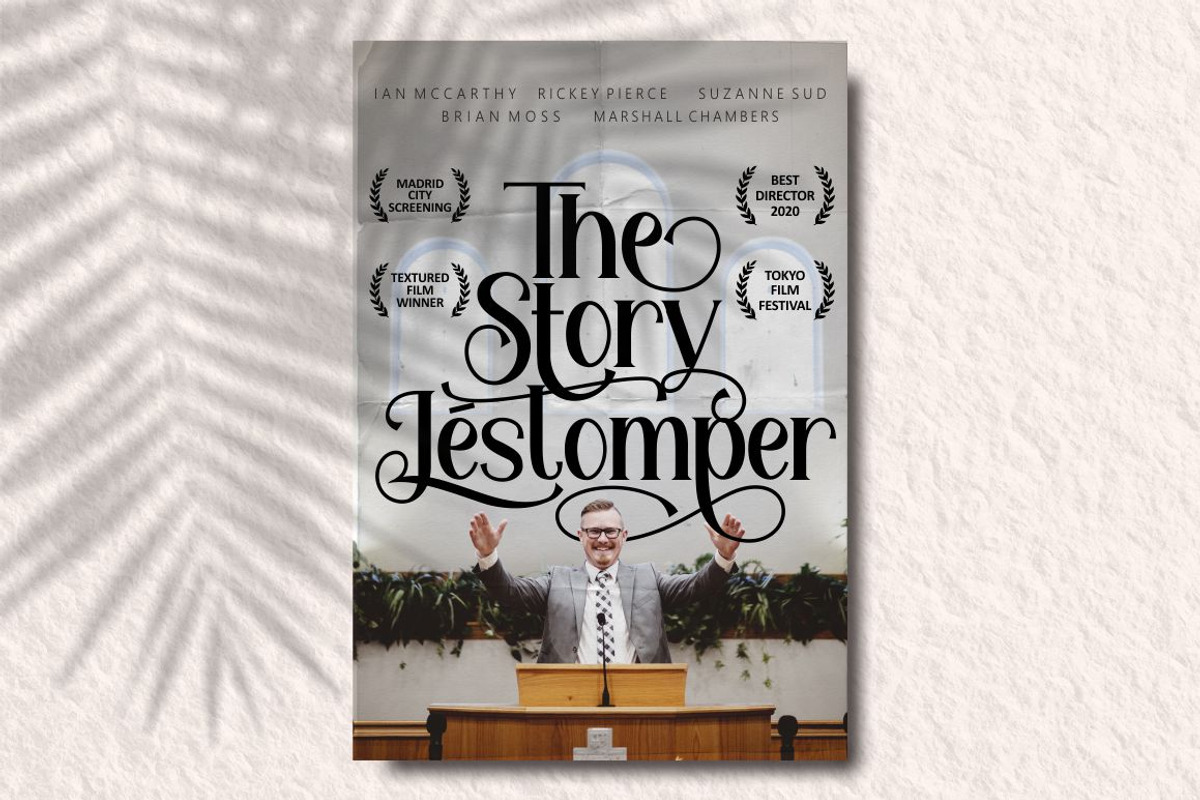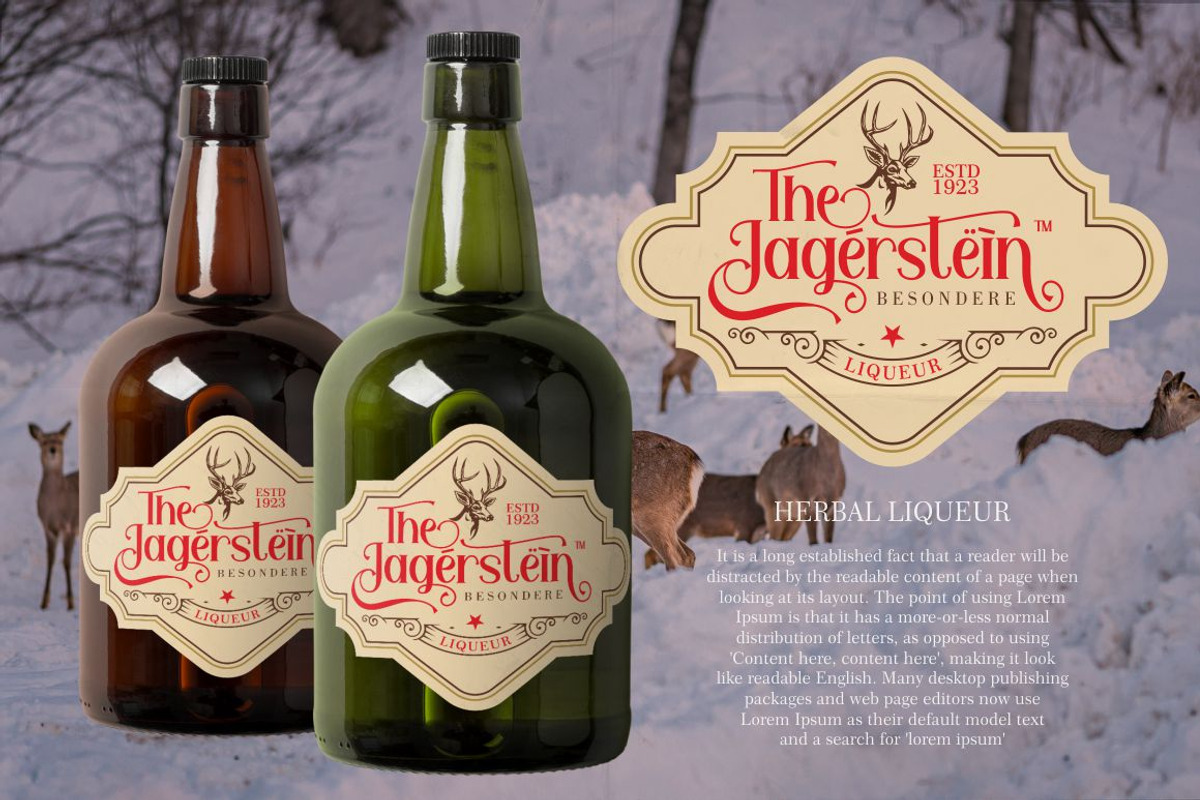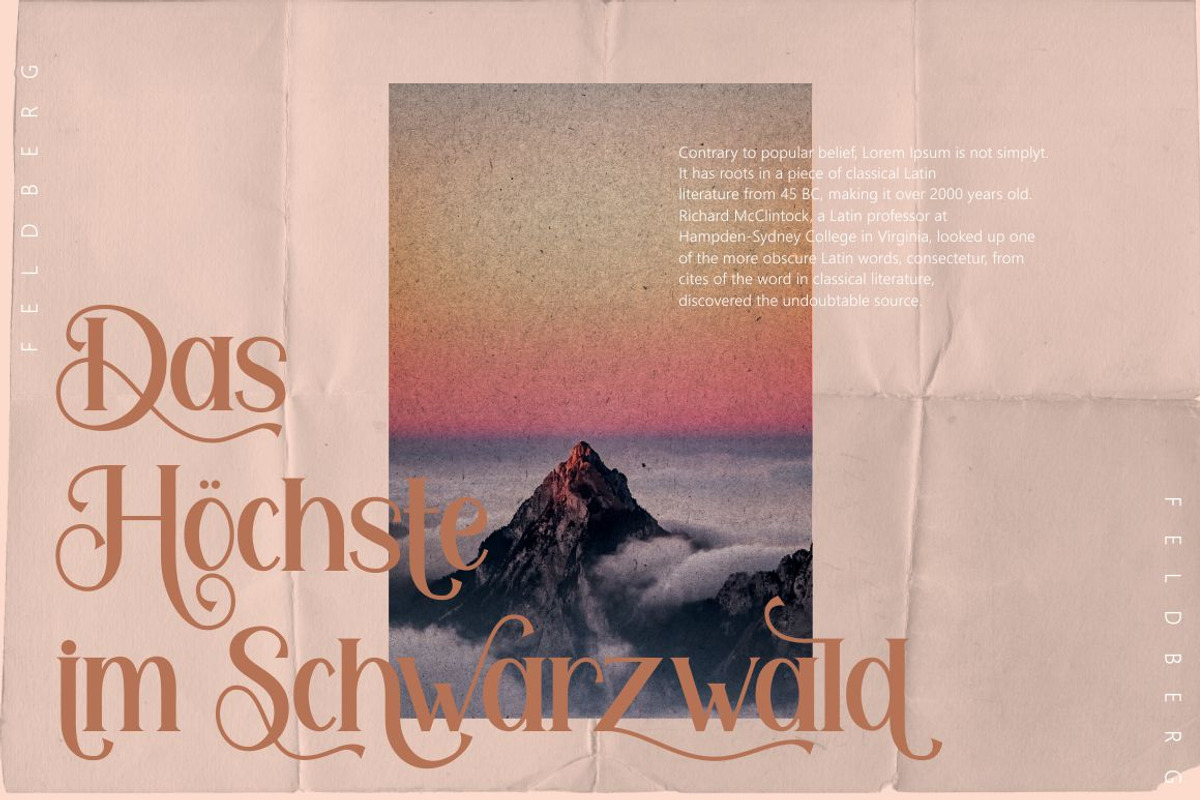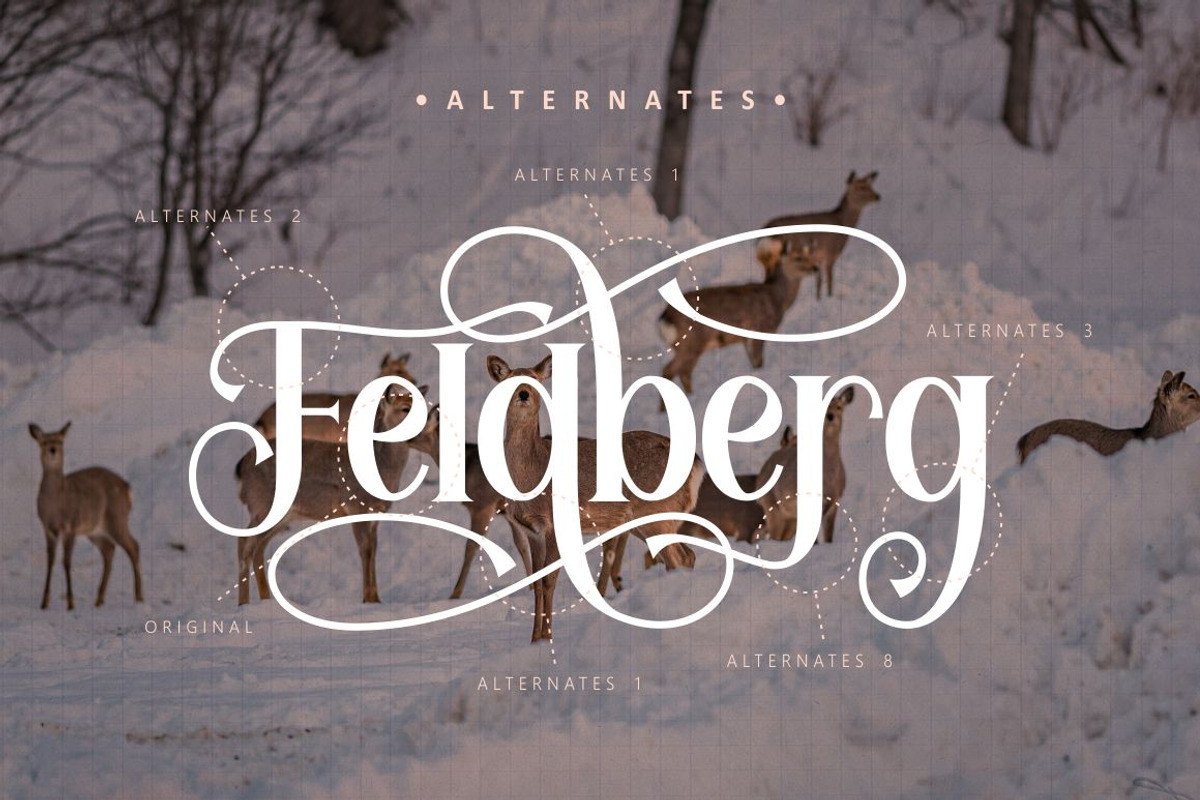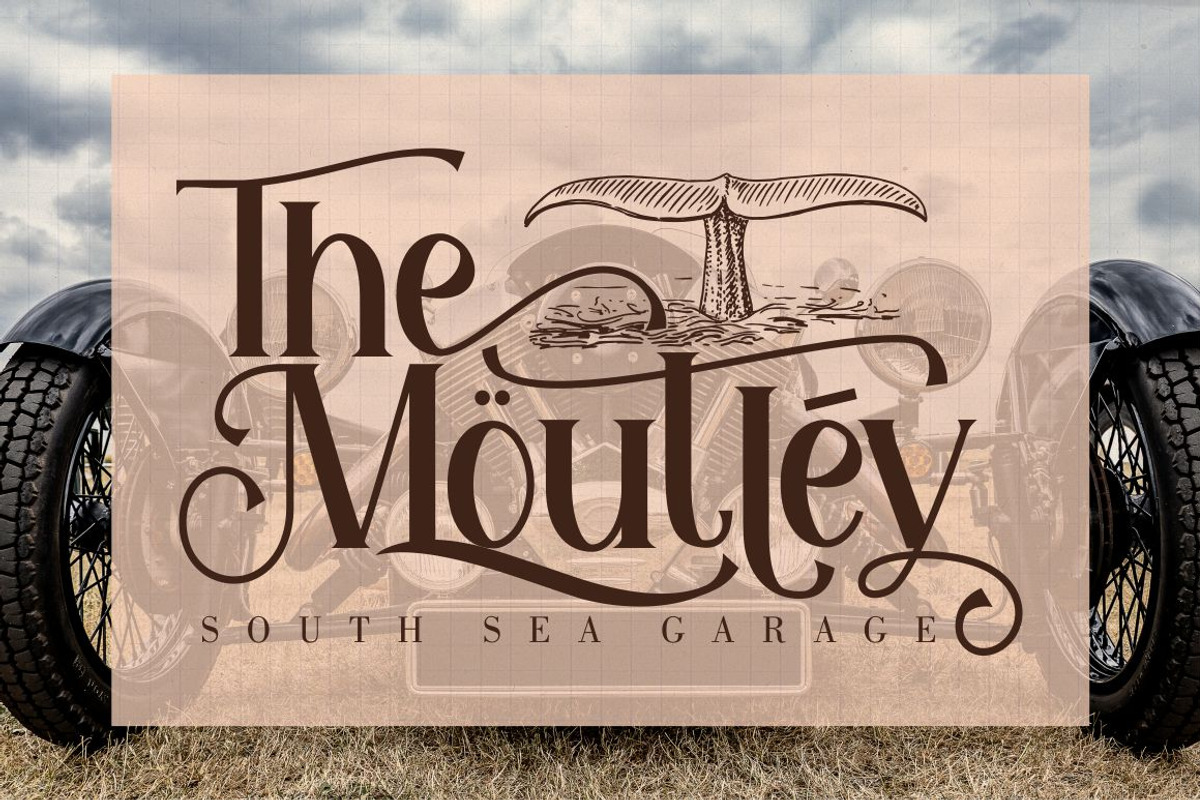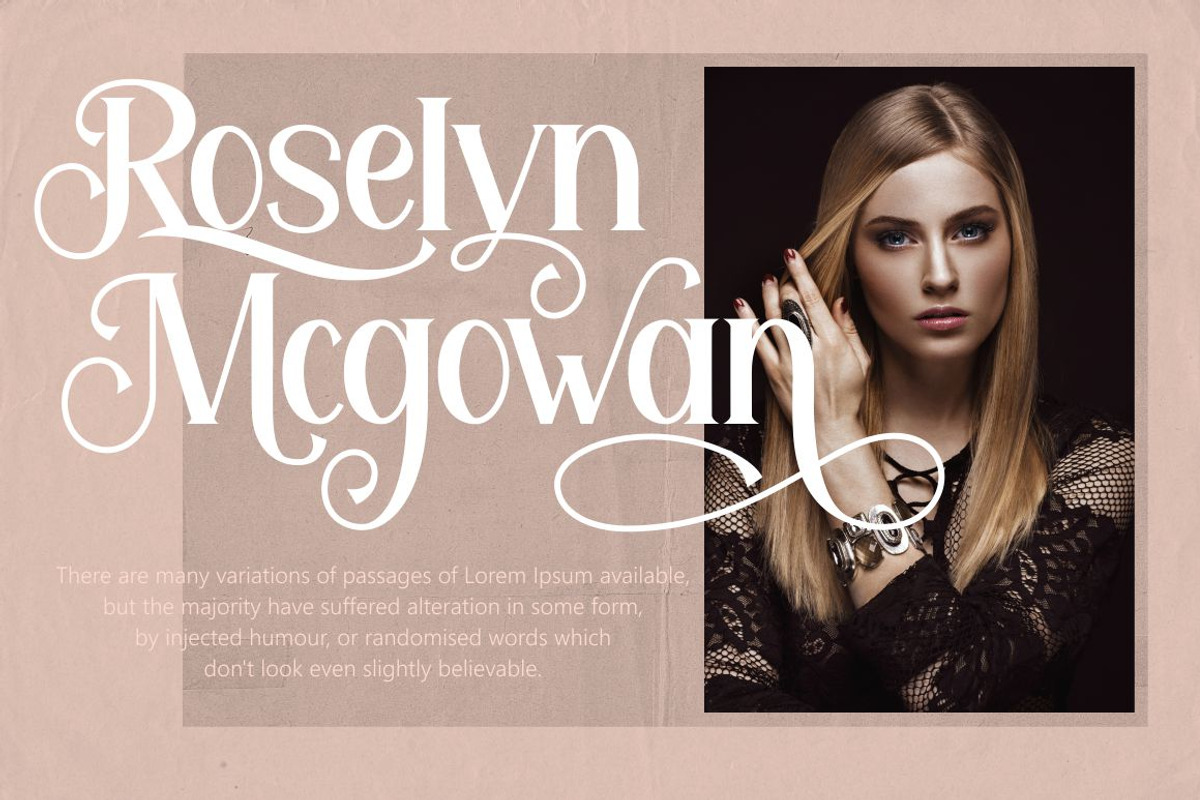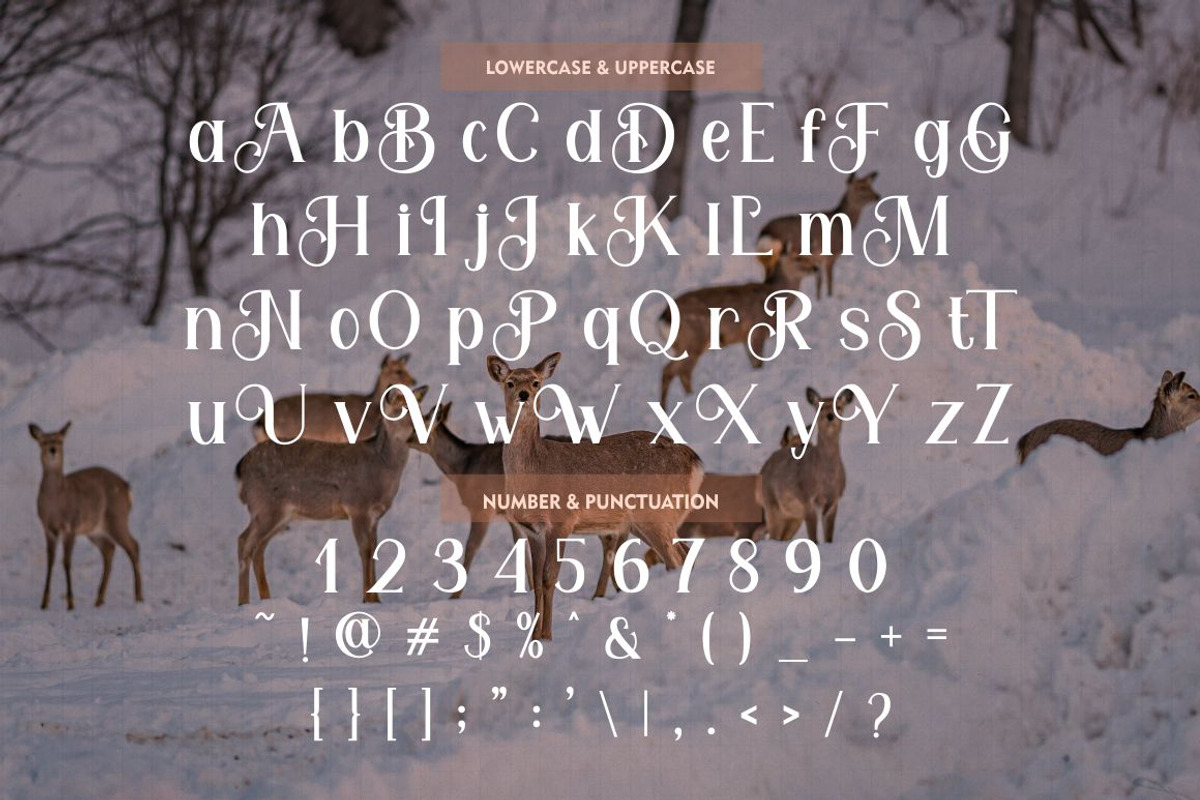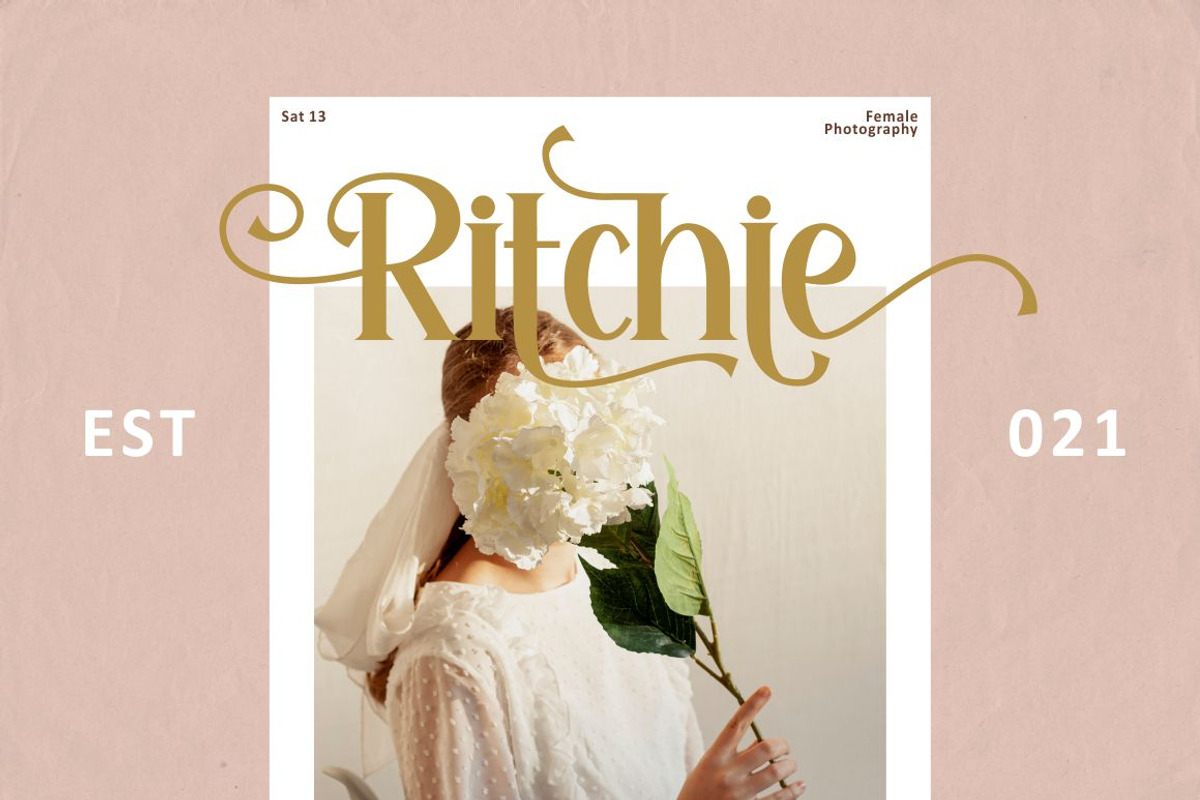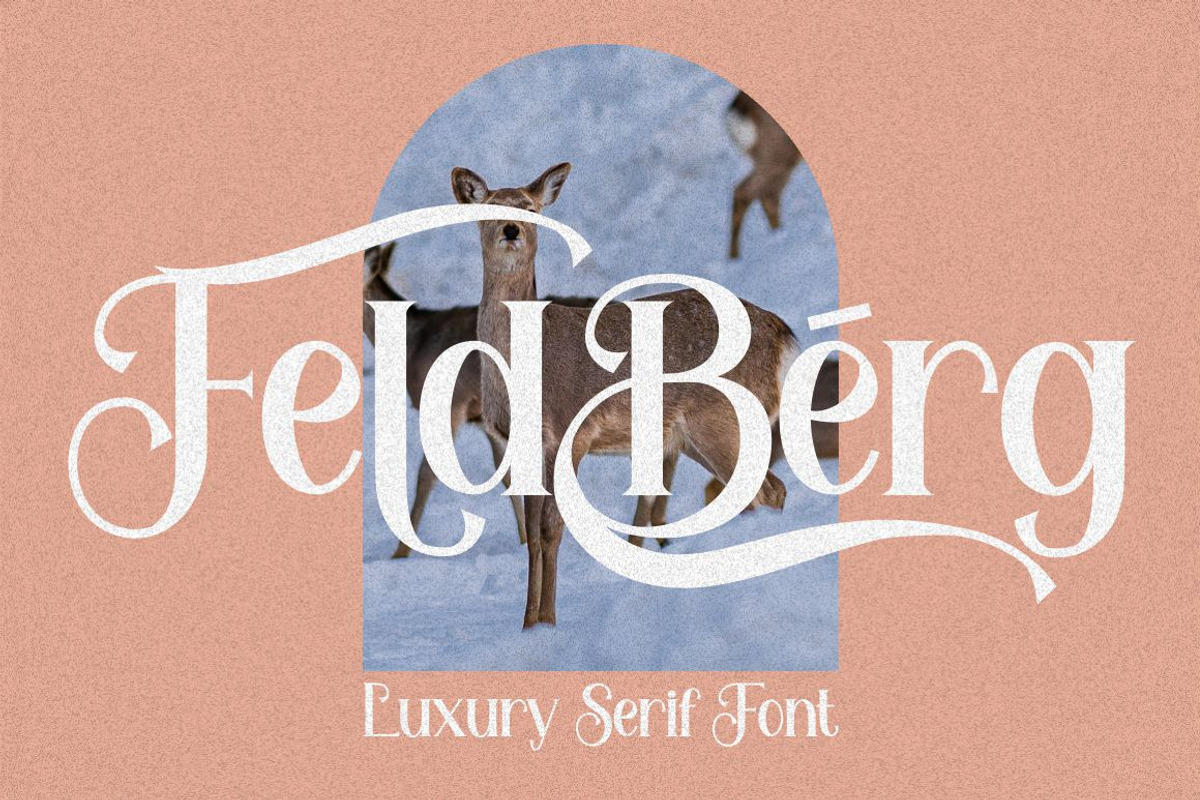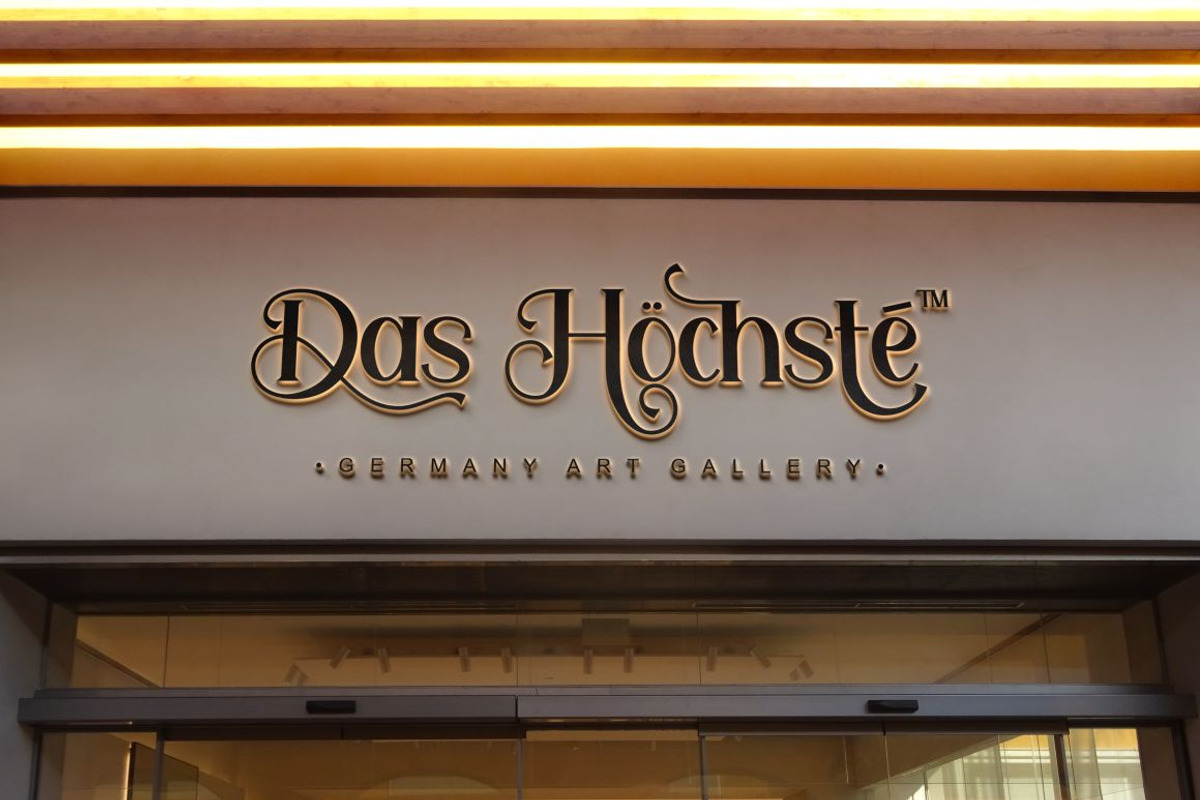
Feldberg - Elegant Luxury Serif Font
Feldberg is a elegant and luxury serif font with tons of beautiful alternative glyphs and multilingual support. Feldberg is font that will bring in your projects a touch of luxury and style. Come with open type feature with a lot of alternates, its help you to make great lettering, composition and layout. Feldberg best uses for heading headlines, cover, poster, logos, quotes, product packaging, merchandise, social media & greeting cards and many more.
Comes with feature :
- Number, Punctuation And Symbols
- Multilanguage Support.